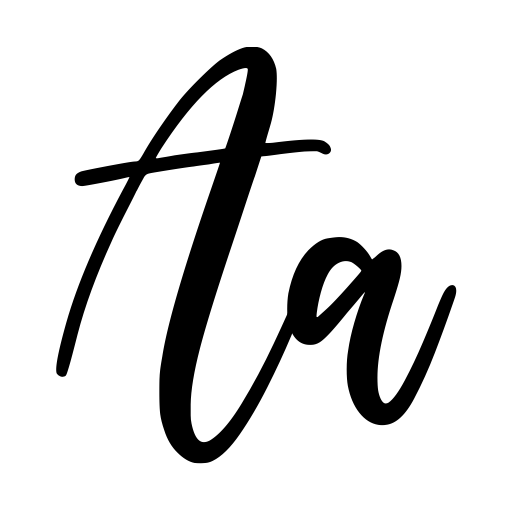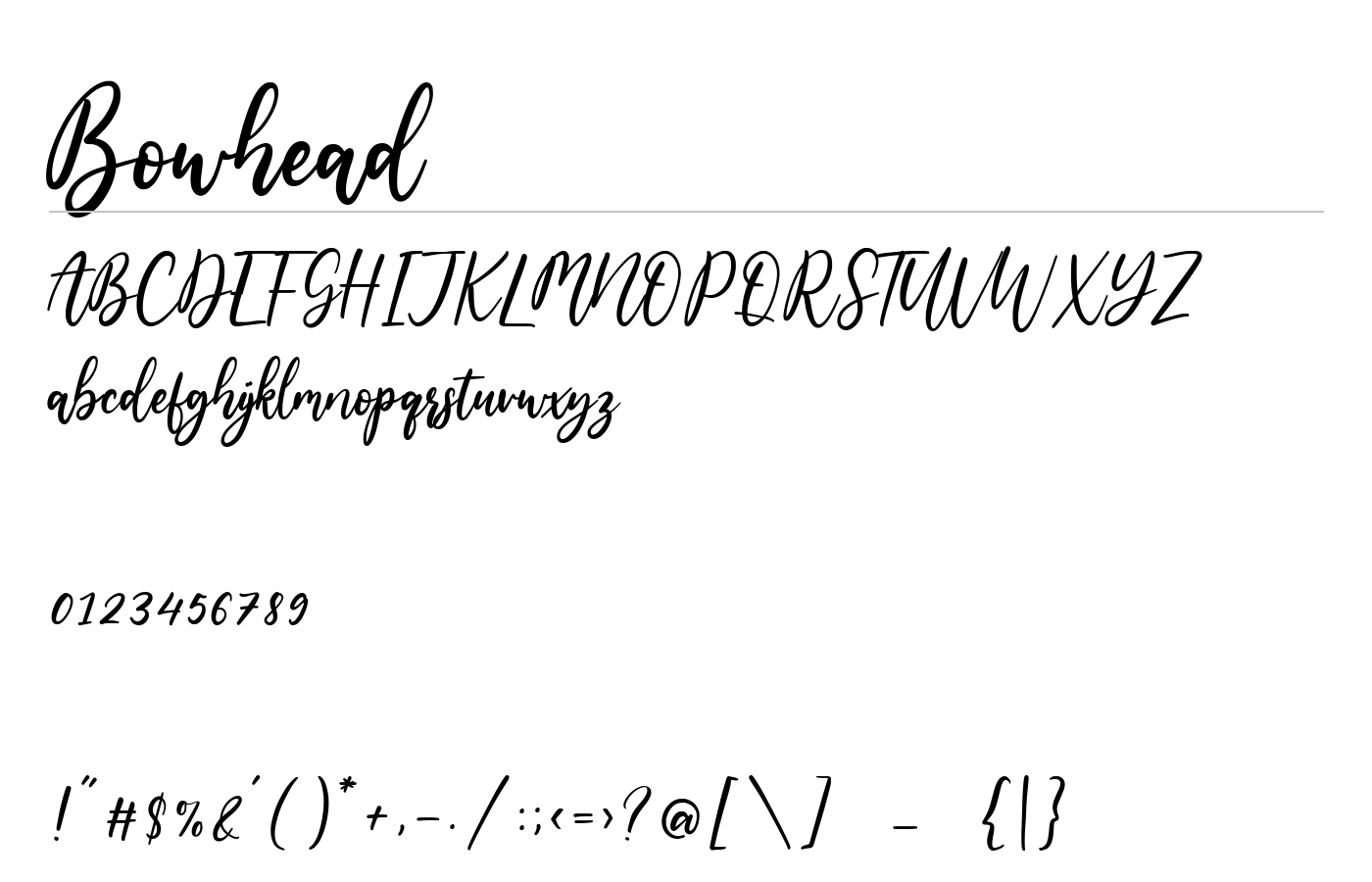
Bowhead is an elegant script font with a smooth, flowing style that combines sophistication with a friendly, personal touch. It features a lively, handwritten look with moderate contrast and slightly condensed letterforms, making it perfect for branding, invitations, and creative projects that need a stylish yet approachable feel. Its delicate curves and fluid connections bring a modern, artisanal charm that works beautifully in logos, headlines, and decorative text.
Bowhead Font
About Bowhead Font